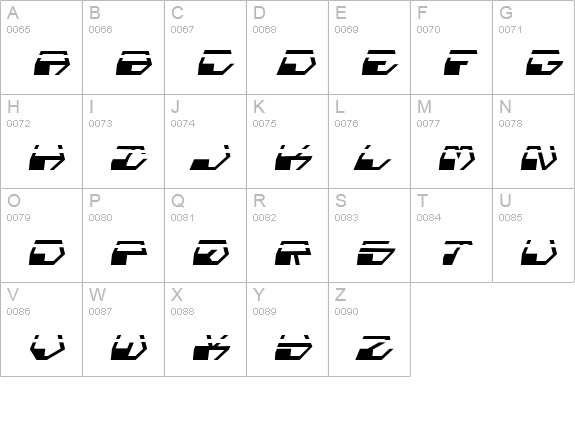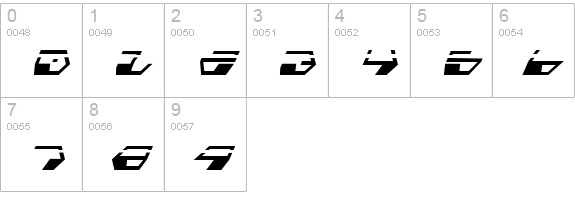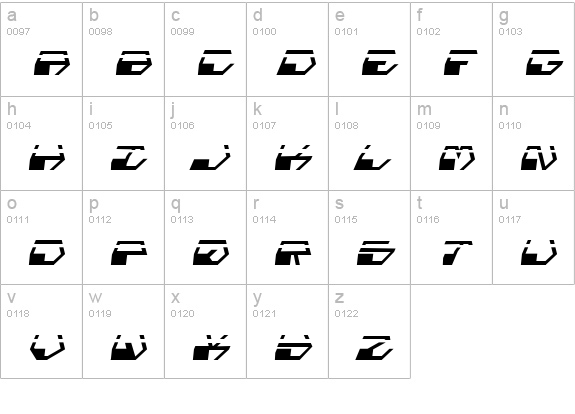
Deranian Laser Italic is a distinctive, italic variant in the Deranian typeface family \xE2\x80\x94 well suited to design and typography projects.
Deranian Laser Italic is a sophisticated and modern font that exudes elegance and style. Its sleek and futuristic design makes it perfect for projects that require a touch of sophistication. The italicized letters add a dynamic and contemporary flair to any text, making it stand out from the crowd. What's even better is that Deranian Laser Italic is completely free to download at FontsMarket.com. Whether you're working on a personal project or a professional design, this font is a versatile choice that will elevate your work to the next level. Don't miss out on the opportunity to add this stunning font to your collection today.